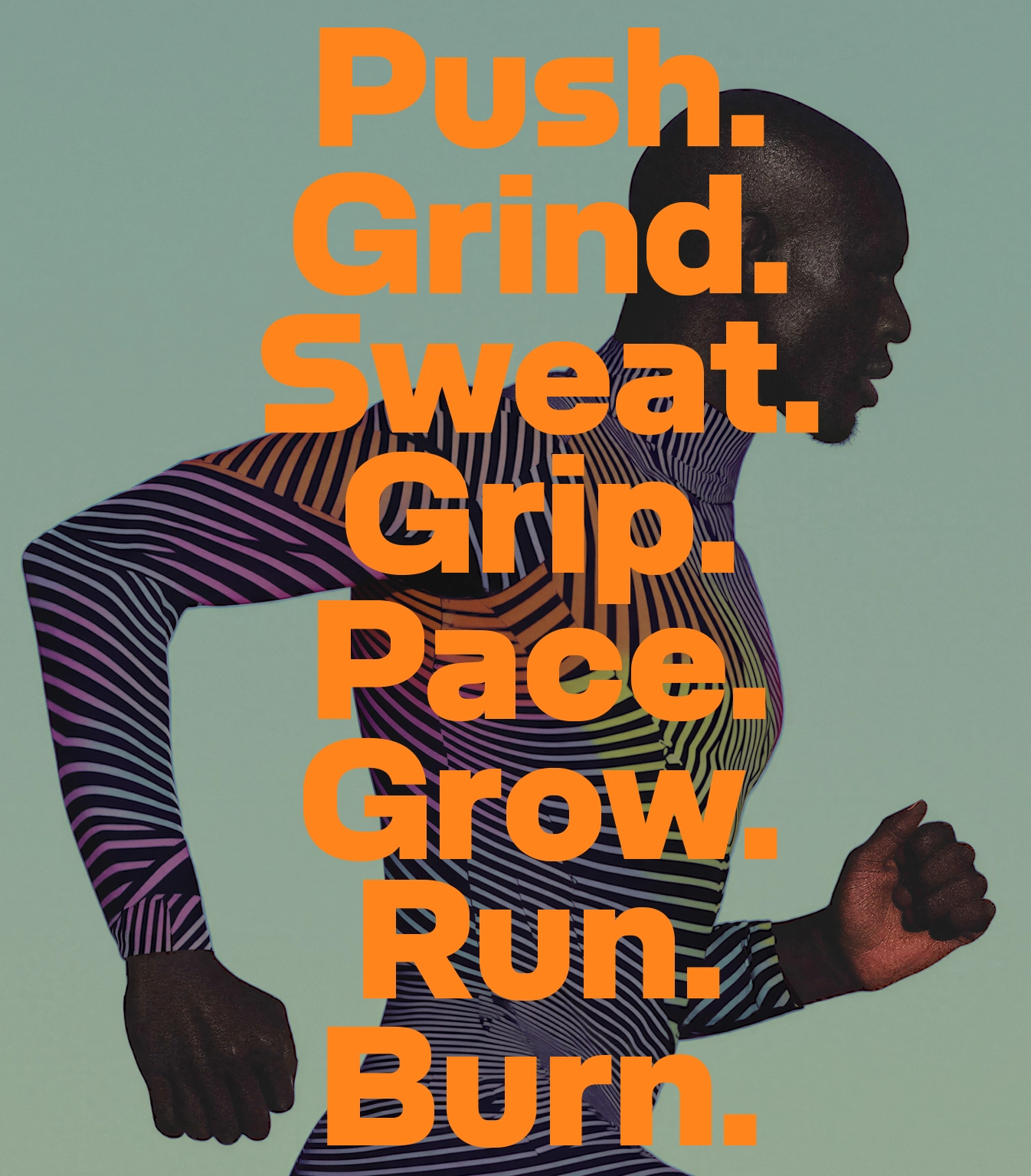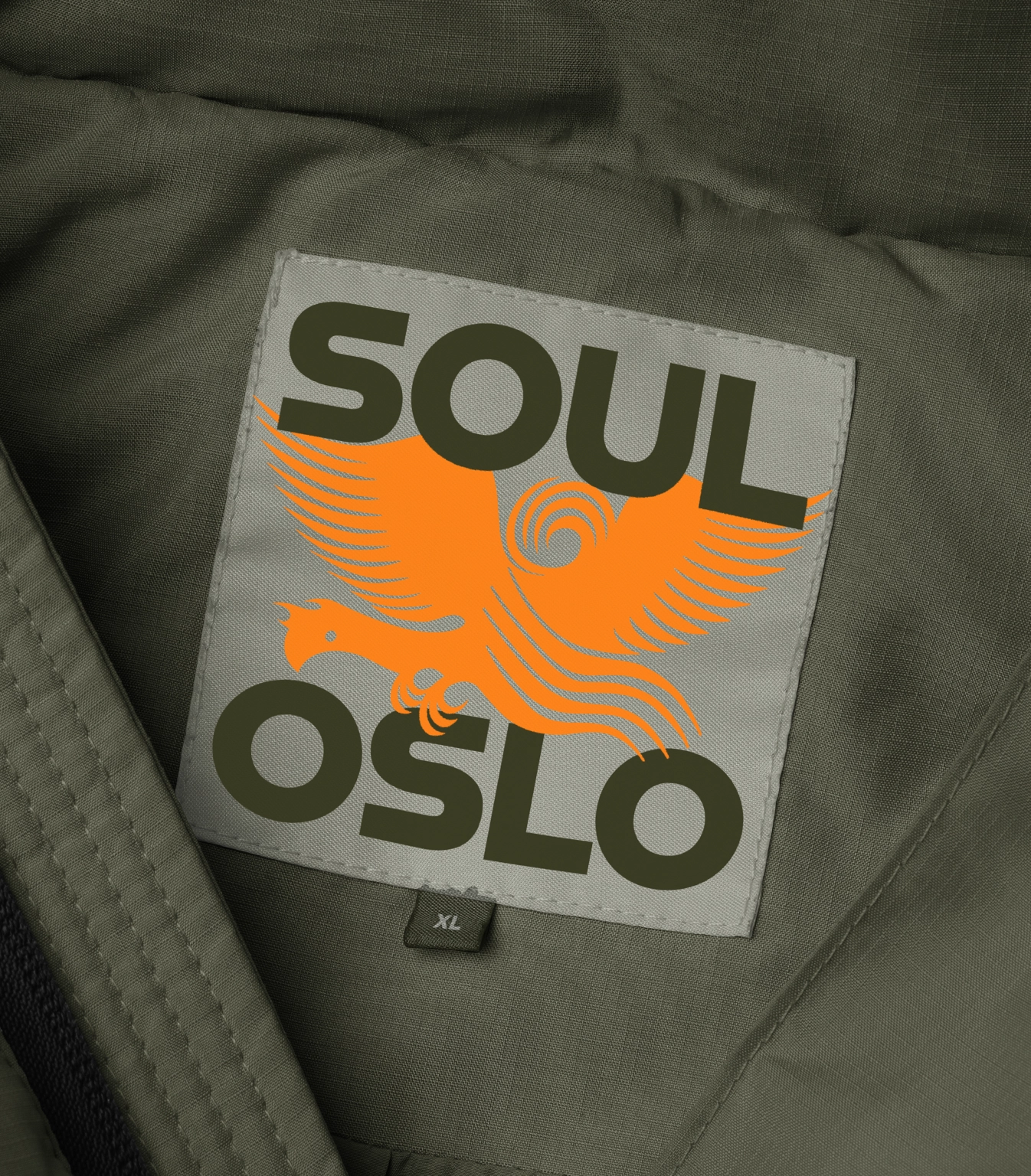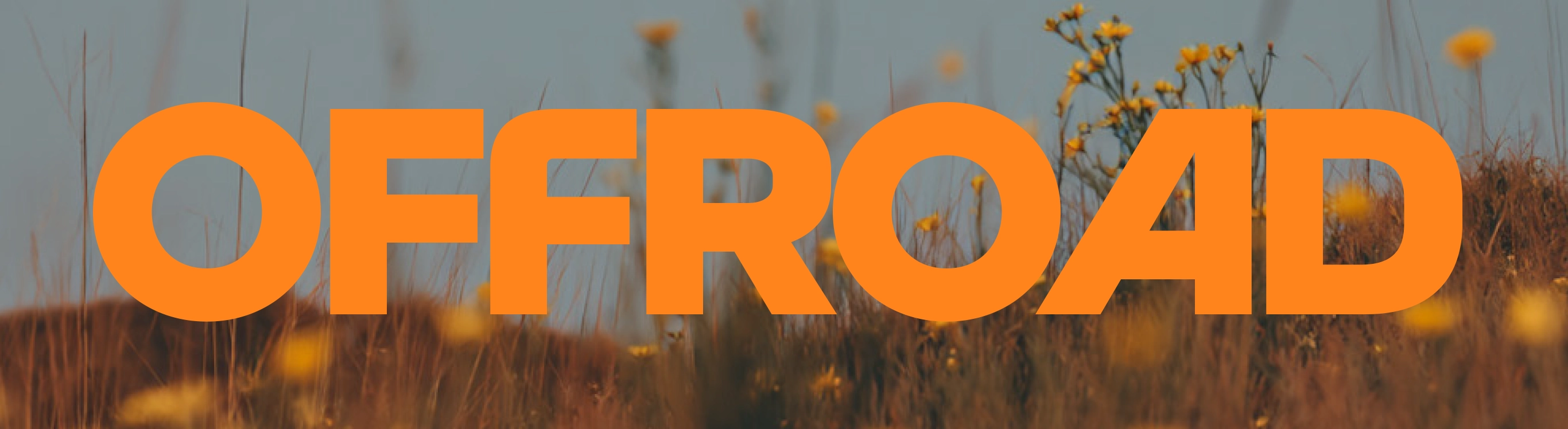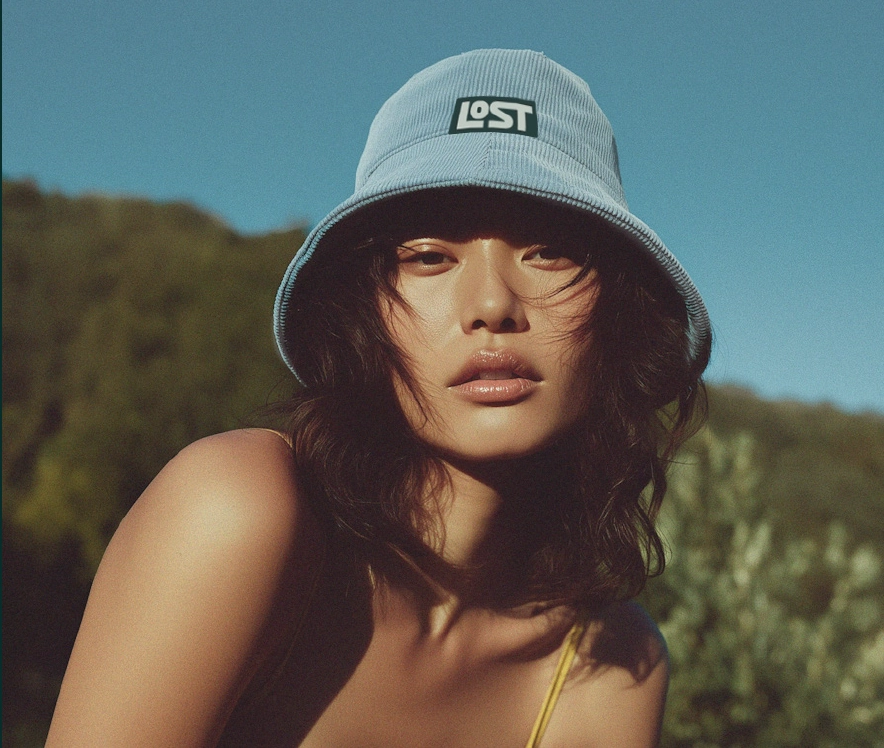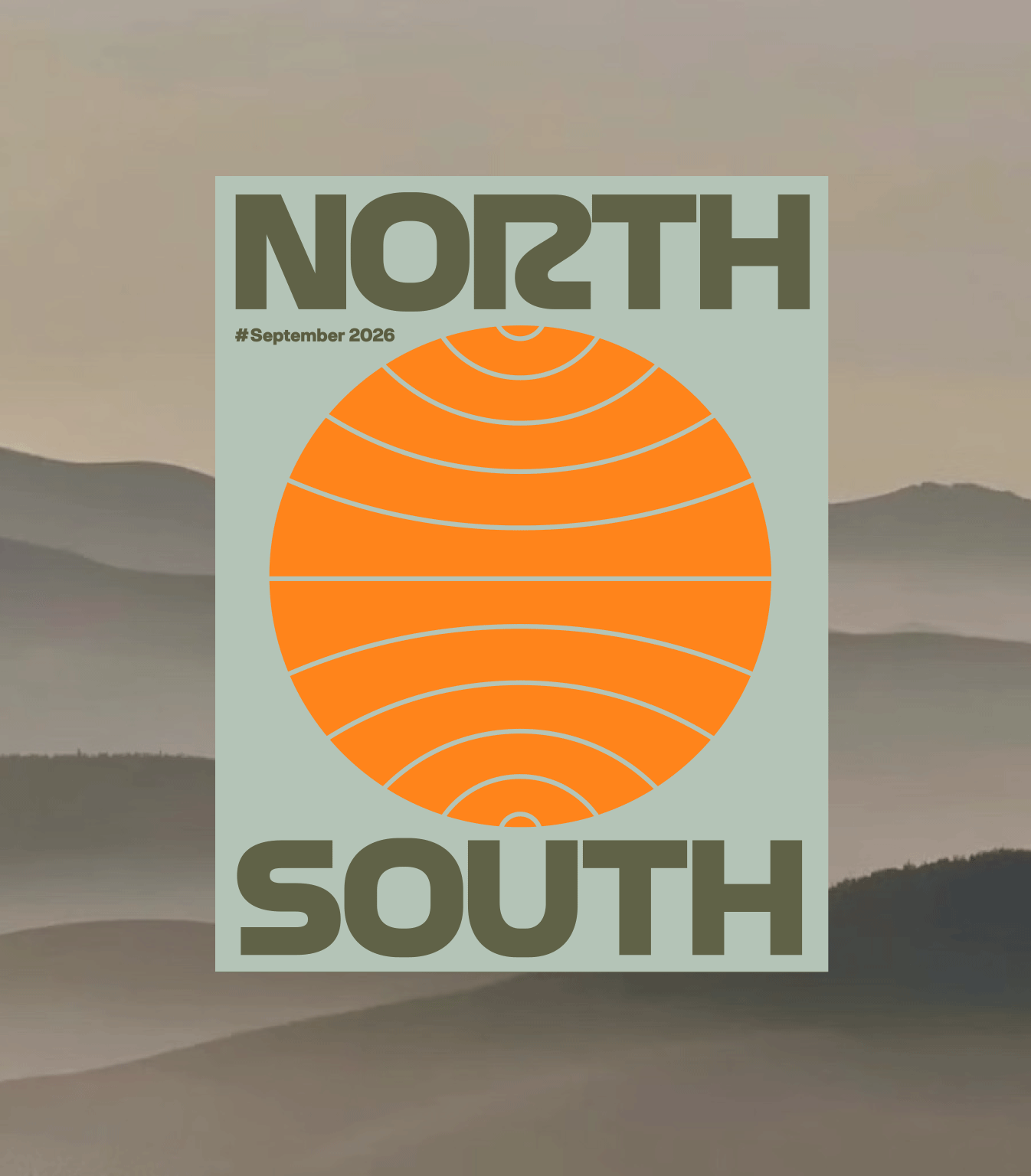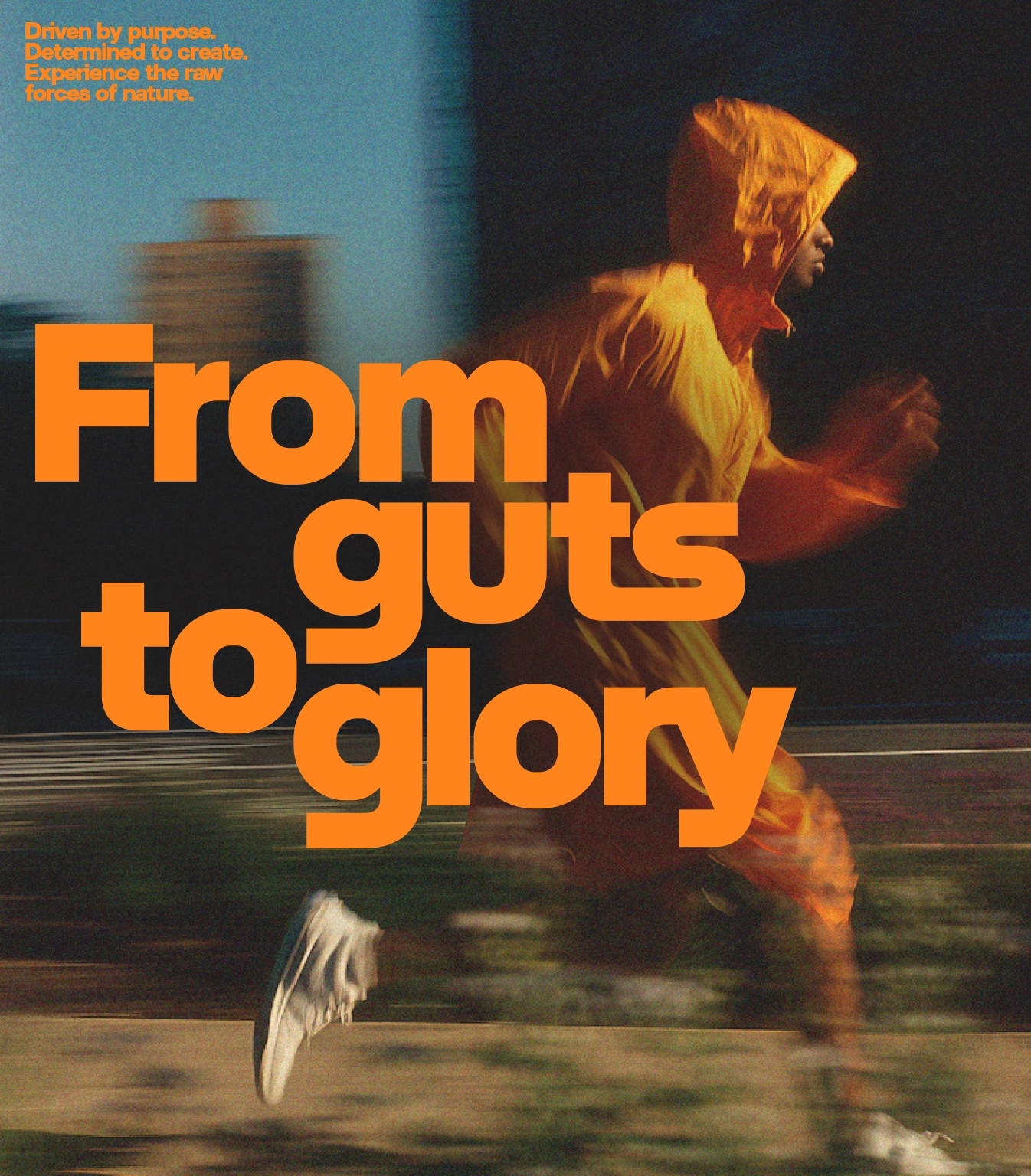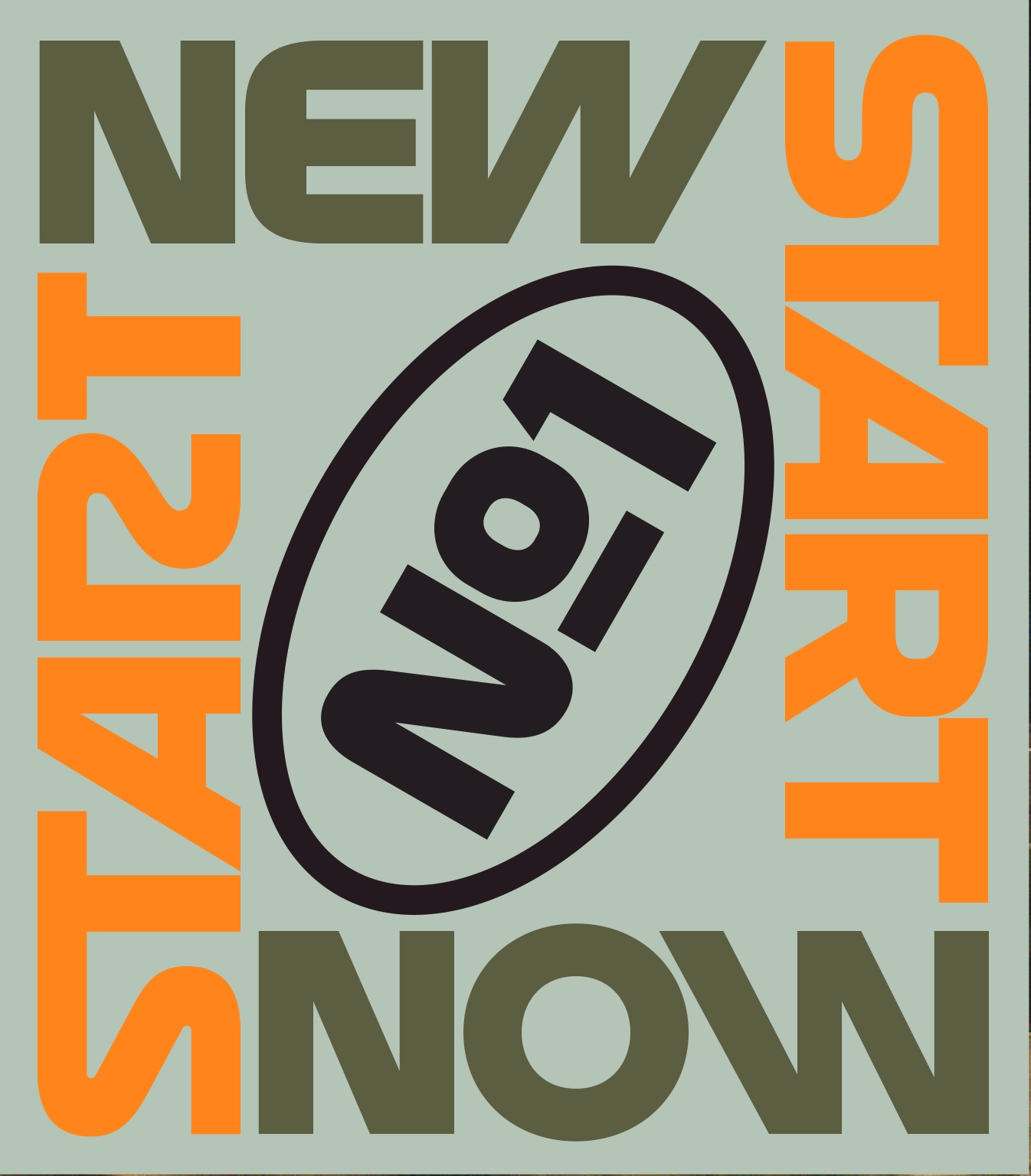
Fjordic
This is a performance typeface. Fjordic is constructed to feel technical yet alive, for those who move themselves and others. Clean lines, aerodynamic forms, and active proportions. This one is ideal for brands that live outdoors, in the gym, or in the pursuit of progress. A typeface like your best gear: precise, functional and empowering.